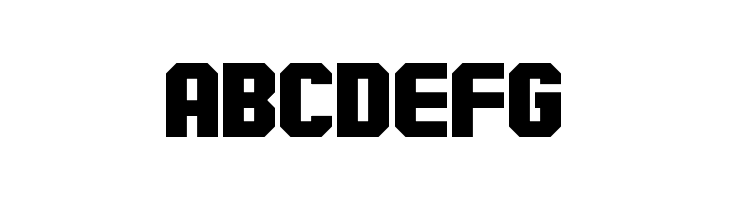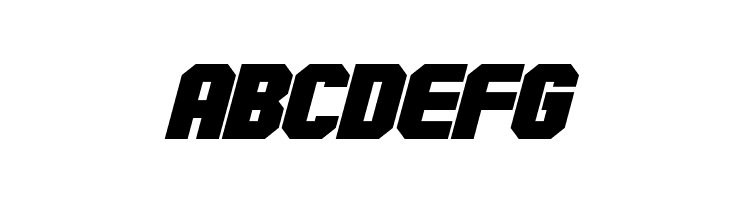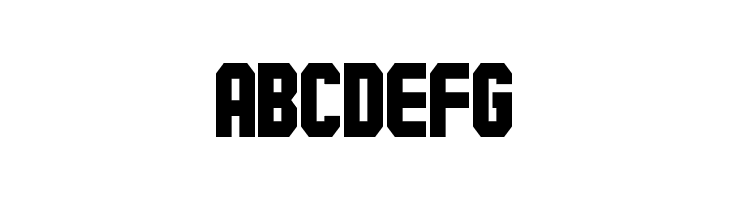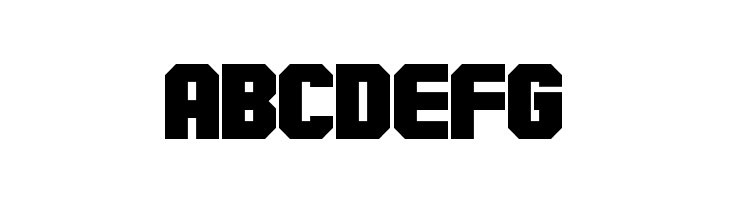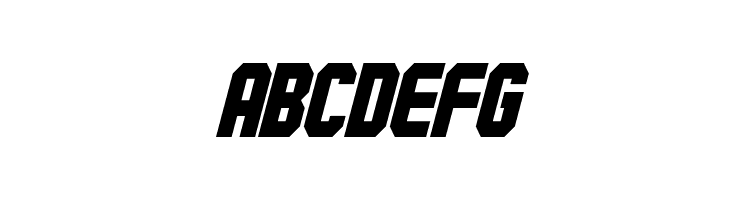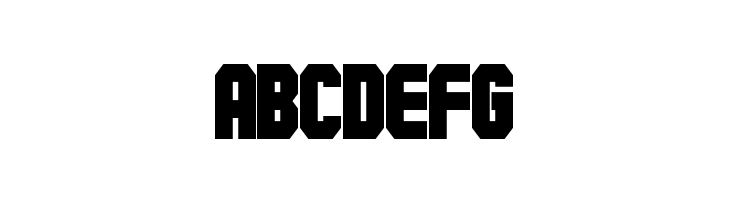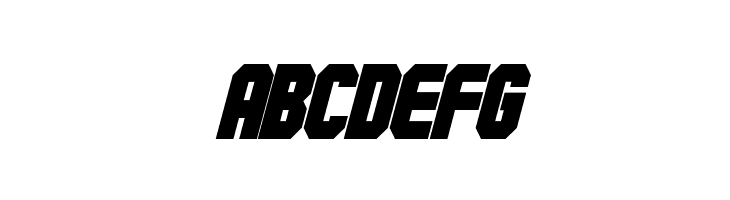
A bold, oblique font with a dynamic and angular design.
A bold, geometric font with angular lines and a modern, blocky appearance.
A bold, italicized font with sharp angles and a modern, dynamic style.
A bold, geometric, and condensed font with a modern industrial style.
A bold, geometric font with a strong, industrial style.
Bold, italicized, and condensed with sharp angles for a dynamic look.
A bold, condensed font with a geometric and powerful style.
A bold, italic, and condensed font with high contrast and dynamic angles.
A bold, geometric italic font with a futuristic and dynamic style.